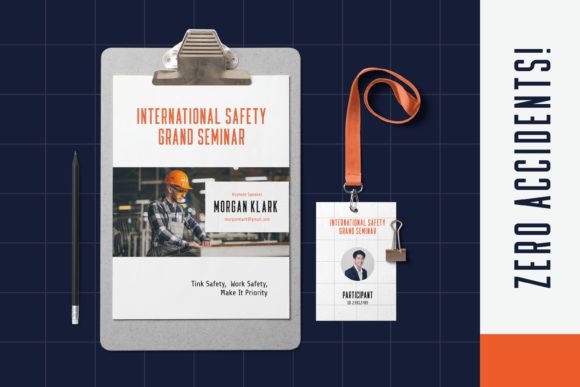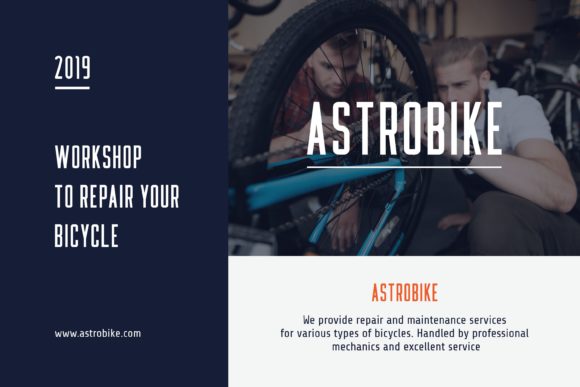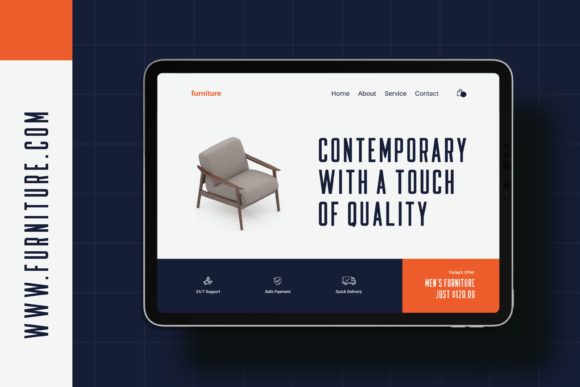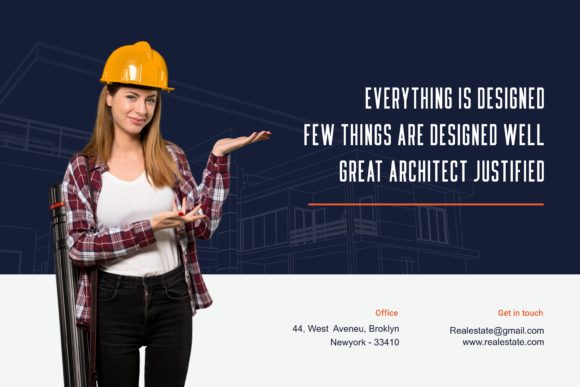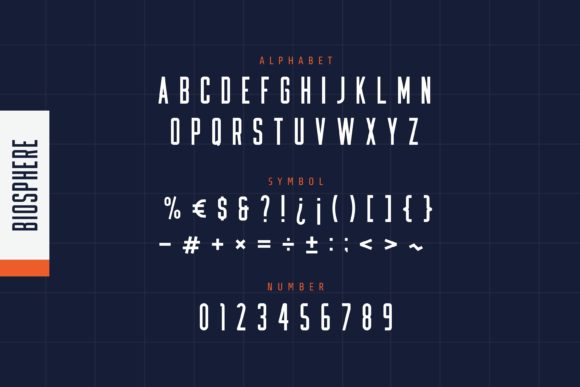
Biosphere Font: Elevate Your Design with a Modern and Technical Display Font
In the world of design, typography plays a crucial role in conveying messages, expressing creativity, and capturing the audience’s attention. A well-chosen font can make or break a design project. If you’re a designer or crafter looking for a modern and technical display font to take your design ideas to the next level, look no further than Biosphere Font. In this article, we’ll explore the features, benefits, and uses of Biosphere Font, and why it’s a must-have for any design enthusiast.
What is Biosphere Font?
Biosphere Font is a contemporary and technical display font designed to add a touch of sophistication and elegance to any design project. Its unique and futuristic style makes it perfect for creating stunning visual effects, from logos and branding materials to posters, flyers, and digital media. With its clean lines, precise curves, and technical feel, Biosphere Font is ideal for designers who want to create modern, high-tech designs that stand out from the crowd.
Key Features of Biosphere Font
- Modern and Technical Design: Biosphere Font boasts a sleek and futuristic design that’s perfect for creating modern and high-tech visual effects.
- High-Quality Typography: The font features precise curves, clean lines, and exceptional kerning, ensuring that your text looks crisp and professional.
- Versatile and Flexible: Biosphere Font is suitable for a wide range of design projects, from logos and branding materials to posters, flyers, and digital media.
- Easy to Read: Despite its technical feel, Biosphere Font is highly legible, making it perfect for body text and headlines.
Benefits of Using Biosphere Font
So, why choose Biosphere Font for your design projects? Here are just a few benefits of using this amazing font:
- Stand Out from the Crowd: Biosphere Font’s unique and futuristic design ensures that your design projects will stand out from the competition.
- Enhance Your Brand: With its modern and technical feel, Biosphere Font is perfect for creating a strong and memorable brand identity.
- Save Time and Effort: The font’s high-quality typography and versatility save you time and effort, allowing you to focus on other aspects of your design project.
Uses of Biosphere Font
Biosphere Font is an incredibly versatile font that can be used in a variety of design projects, including:
- Logos and Branding Materials: Create a strong and memorable brand identity with Biosphere Font.
- Posters and Flyers: Add a touch of modernity and sophistication to your posters and flyers with Biosphere Font.
- Digital Media: Use Biosphere Font to create stunning visual effects for your website, social media, or digital advertising campaigns.
- Packaging Design: Add a touch of elegance and sophistication to your packaging design with Biosphere Font.
In conclusion, Biosphere Font is a modern and technical display font that’s perfect for designers and crafters looking to elevate their design ideas to the next level. With its unique and futuristic style, high-quality typography, and versatility, Biosphere Font is a must-have for any design enthusiast. Whether you’re creating logos and branding materials, posters and flyers, or digital media, Biosphere Font is the perfect choice. So why wait? Download Biosphere Font today and take your design projects to new heights!
- Is Biosphere Font suitable for body text? While Biosphere Font is primarily designed for display use, it’s also highly legible and can be used for body text.